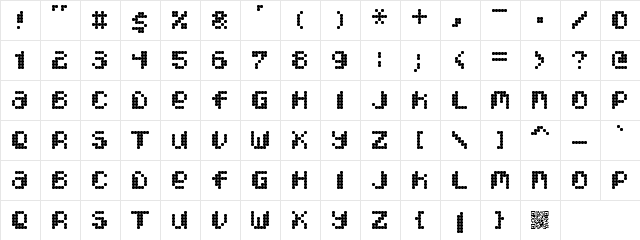
Pixcel DotMatrix
Design Context for Pixcel Typeface
Pixcel is rooted in pixel-grid construction, making it a natural fit for game UI, retro computing aesthetics, and digital nostalgia projects.
A natural choice for retro game titles, chiptune music branding, 8-bit UI, and digital nostalgia projects.
Pro Tip: Pair Pixcel with flat colour palettes and simple geometric UI elements to reinforce its digital aesthetic.